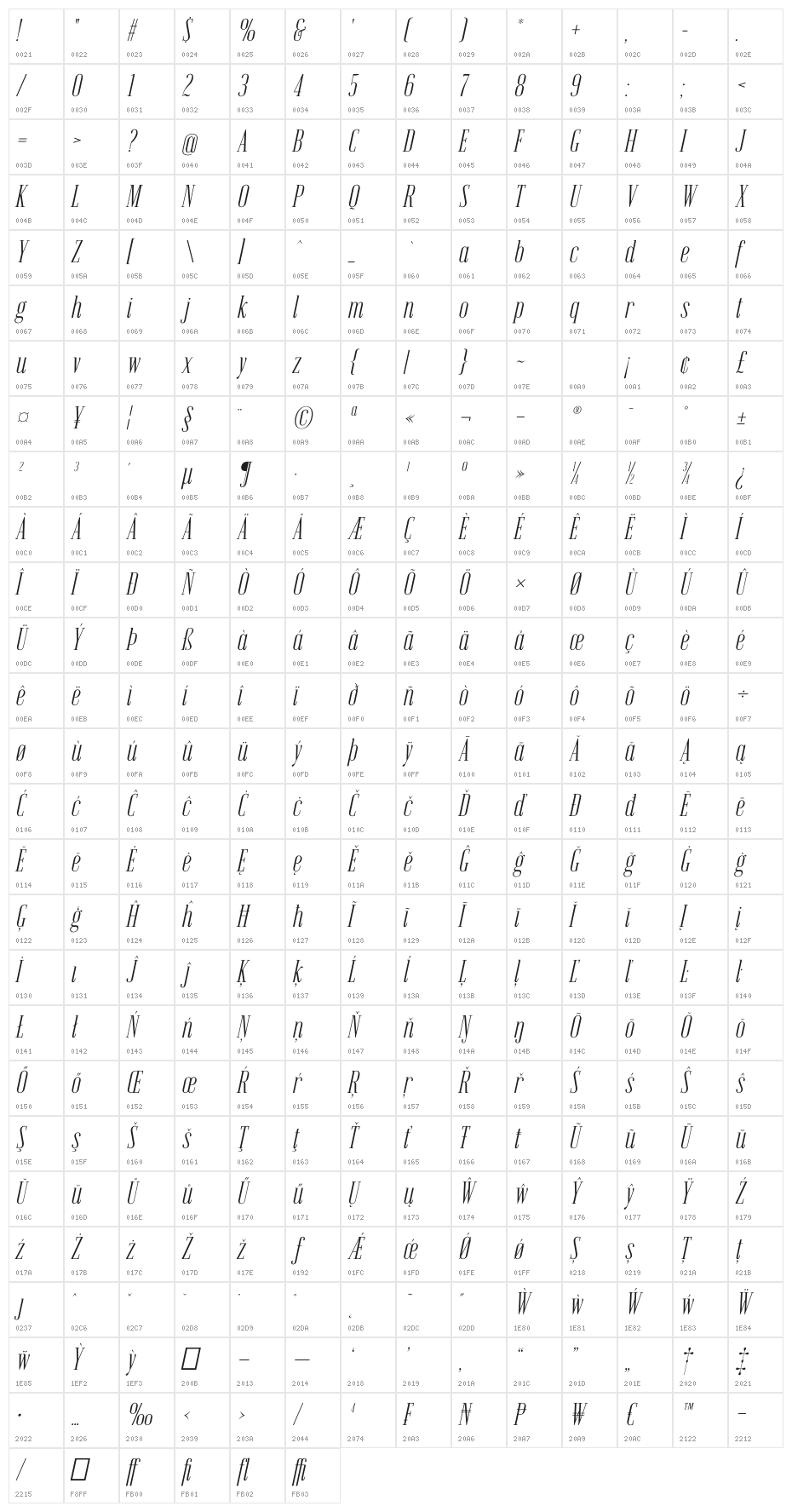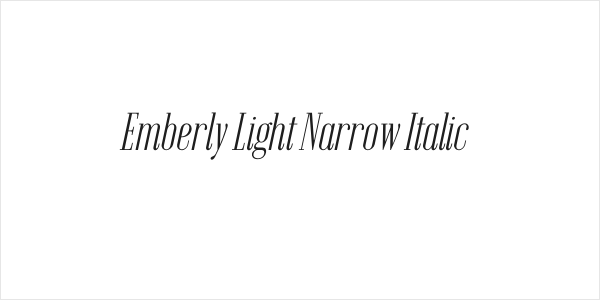
Emberly Light Narrow Italic Font
Emberly Light Narrow Italic Description
This font features a refined and elegant design with a light weight and narrow width, giving it a sophisticated and modern appearance. The italic style adds a dynamic and graceful touch, making it suitable for various creative applications. The characters are tall and slender, with a high contrast between thick and thin strokes, enhancing its readability and visual appeal. The spacing between characters is tight, contributing to its sleek and compact look. This font is ideal for projects that require a touch of elegance and style, such as fashion magazines, luxury branding, or high-end product packaging.
| Proposed Projects | Fashion magazines, luxury branding, high-end product packaging, elegant invitations. |